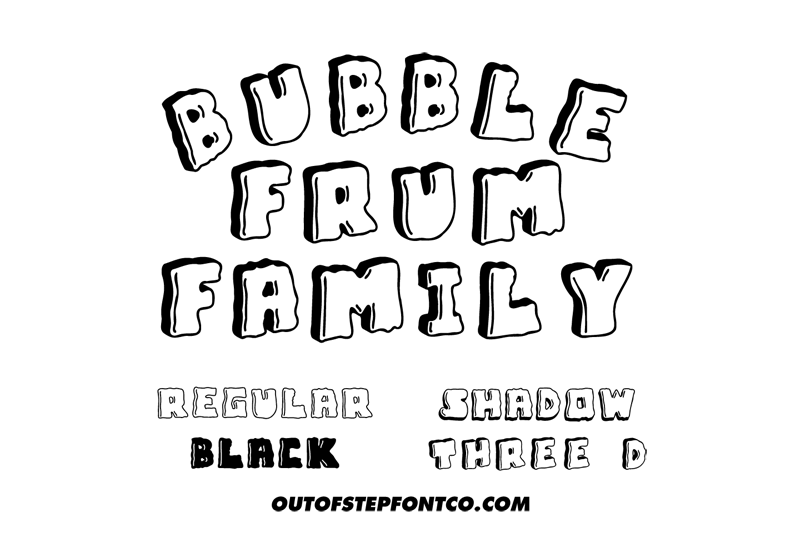
Font name: | Bubble Frum |
Author: | Out of Step Font Company |
Note by Out of Step Font Company | |
Bubble Frum is probably the greatest bubble font every created in the history of the universe, and thereafter. It's unmatchable. Twenty six of the finest hand-drawn bubble letters ever put to paper, and then some. Plus, there's more! - shiny uppercase / shine-free lower case - black version - shadow version - 3D version - new mods to be released in the future too? Full version downloads / commercial licenses can be acquired here: https://outofstepfontco.com/products/bubble-frum |